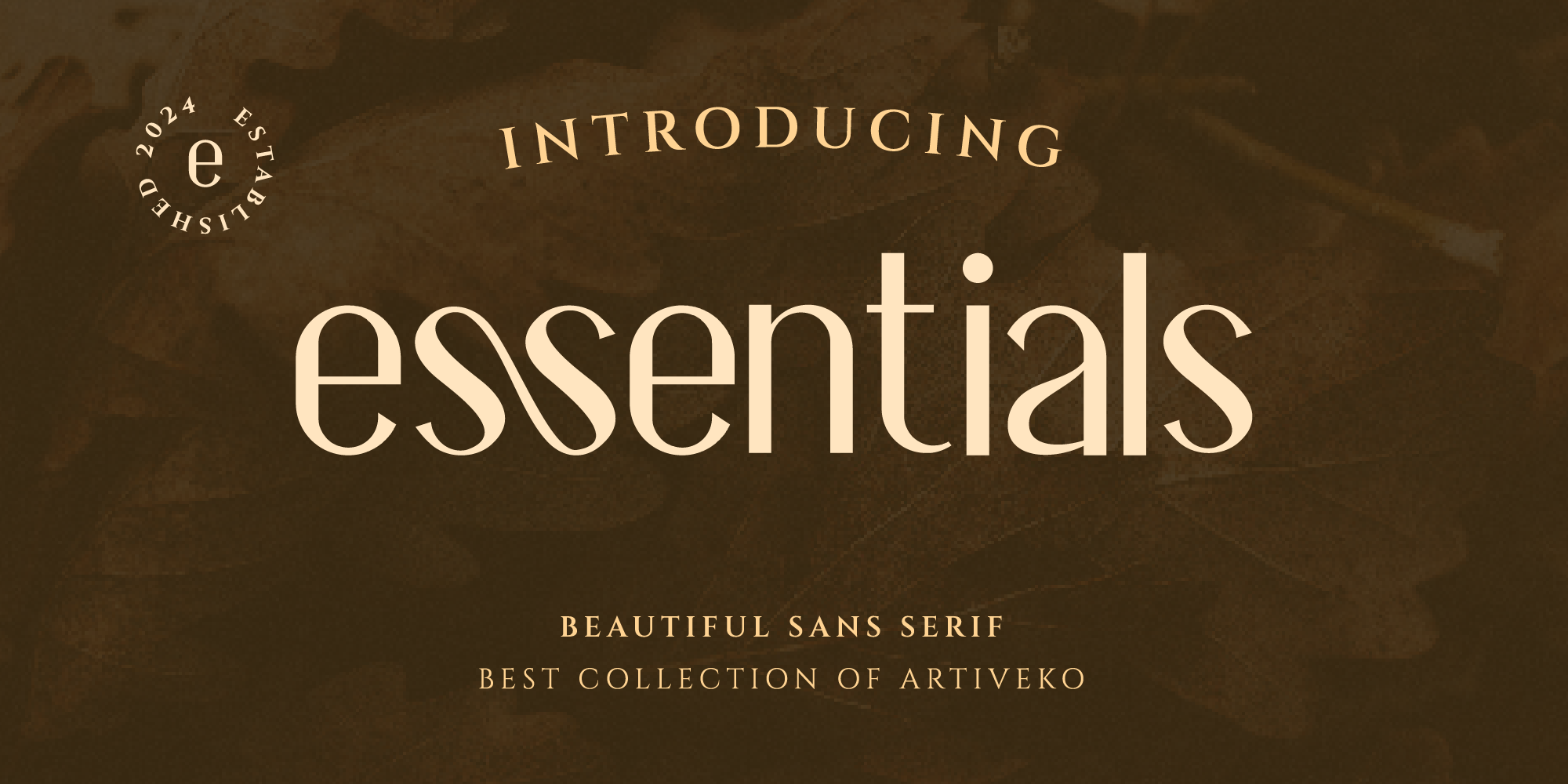
Essentials Font is perfect for minimalist brand identities, clean product packaging, modern website interfaces, corporate presentation materials, sleek business cards, contemporary signage systems, tech startup branding, professional documentation, streamlined marketing campaigns, and sophisticated editorial layouts.
What makes Essentials Font so exciting is its masterful ability to distill typographic excellence down to its purest form, creating letterforms that embody the philosophy that true sophistication lies in perfect simplicity and flawless execution. This font captures the essence of modern clarity and functional beauty, featuring precisely crafted characters that communicate with crystal-clear directness while maintaining elegant refinement. The clean letter shapes create an atmosphere of professional confidence and contemporary sophistication, making every word feel essential, purposeful, and perfectly placed.
The Essentials Font family includes Thin, Light, Regular, Medium, Bold, and Black weights, along with corresponding italic variations and condensed versions. Each style maintains the font's distinctive minimalist character while offering complete flexibility for different professional applications, from subtle interface text to commanding headlines that establish immediate credibility and modern appeal.
This versatile typeface brings contemporary clarity to modern design projects. The Essentials Font Free Download provides designers with an indispensable tool to create memorable brand identities that communicate efficiency, reliability, and forward-thinking vision. Whether you're developing tech company branding, designing clean product interfaces, or creating professional corporate materials, this font delivers unmatched versatility and timeless appeal.
The meticulously engineered letterforms in Essentials Font feature geometric precision balanced with subtle humanist touches that ensure exceptional readability across all media while maintaining their distinctive contemporary character. Each character has been optimized for both print and digital applications, creating harmonious text that performs flawlessly at any size or resolution. The font's universal appeal makes it ideal for global brands requiring consistent communication across diverse markets and platforms.
Design professionals value how Essentials Font effortlessly communicates professionalism, innovation, and reliability while remaining completely adaptable to different brand personalities and design contexts. The comprehensive glyph set includes technical symbols, mathematical notation, extensive punctuation, and complete international language support, ensuring worldwide compatibility while maintaining its distinctive modern identity. This makes it an essential resource for corporations, tech companies, design agencies, and any organization seeking typography that embodies the fundamental principles of clear communication, functional beauty, and enduring contemporary relevance.